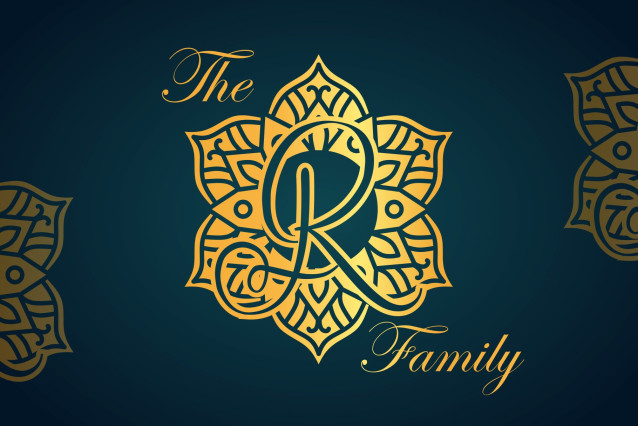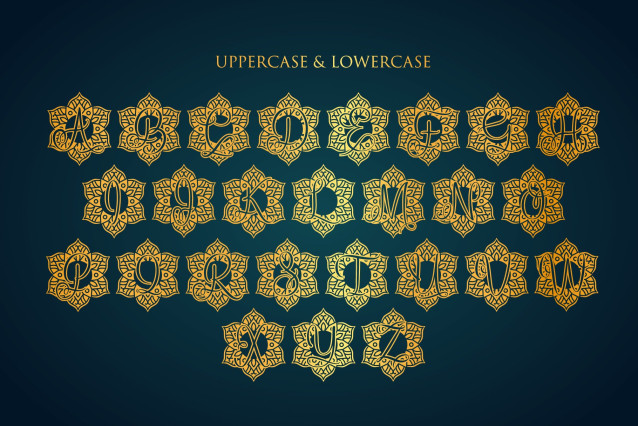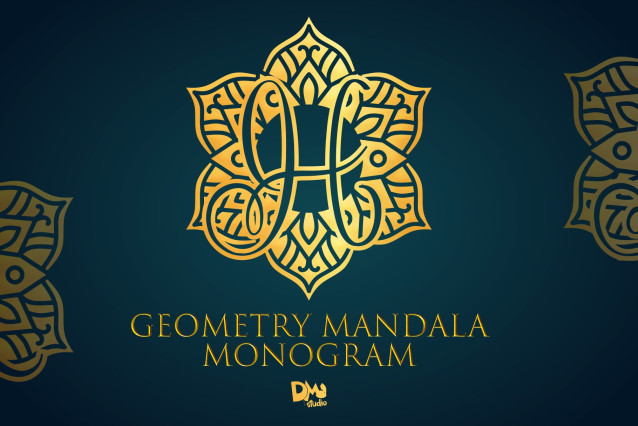
Geometry Mandala Monogram Font
Geometry Mandala Monogram is a sophisticated blend of symmetry and creativity, offering beautifully crafted letters nestled within intricate geometric mandala patterns. This font is perfect for logos, wedding designs, brand identities, decorative monograms, wall art, and more where you want a balance of order, elegance, and ornamental flair.